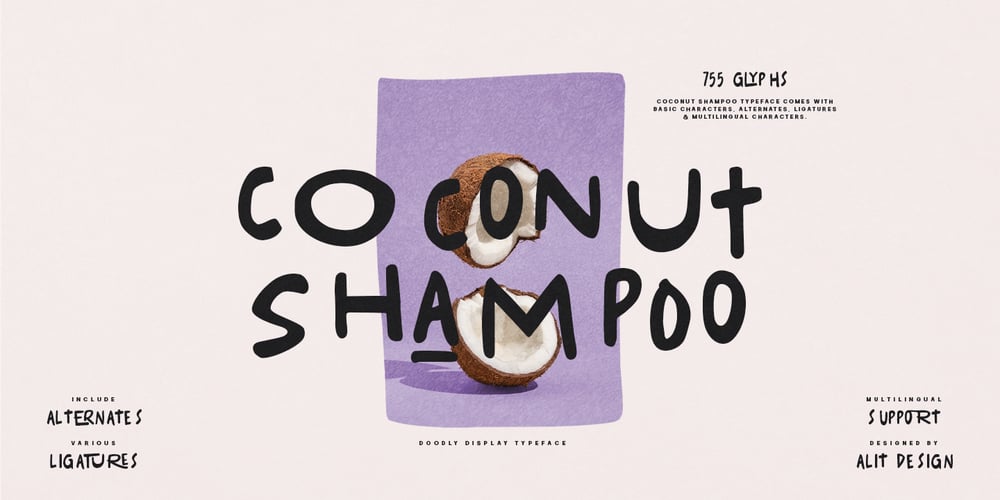
Coconut Shampo Font Family was designed by Alit Suarnegara and published by Alit Design. Coconut Shampo contains 2 styles and family package options. Introducing “Coconut Shampoo” – where handwritten charm meets dynamic flair, creating a uniquely aesthetic experience for your designs. With its playful strokes and natural flow, this font captures the essence of creativity and authenticity.Featuring 755 characters, “Coconut Shampoo” offers a wealth of possibilities for your projects. From alternative glyphs to intricate ligatures, each character is meticulously crafted to add depth and character to your text.But the beauty of “Coconut Shampoo” goes beyond its appearance. With PUA Unicode encoding, this font ensures seamless compatibility across various platforms and software, giving you the freedom to express yourself without limitations.And let’s not forget about versatility. “Coconut Shampoo” boasts multilingual support, allowing you to communicate your message effectively in different languages and regions.Whether you’re designing logos, branding materials, invitations, or anything in between, “Coconut Shampoo” brings a touch of whimsy and sophistication to every project. Embrace the handwritten revolution and let your creativity flow with “Coconut Shampoo.”